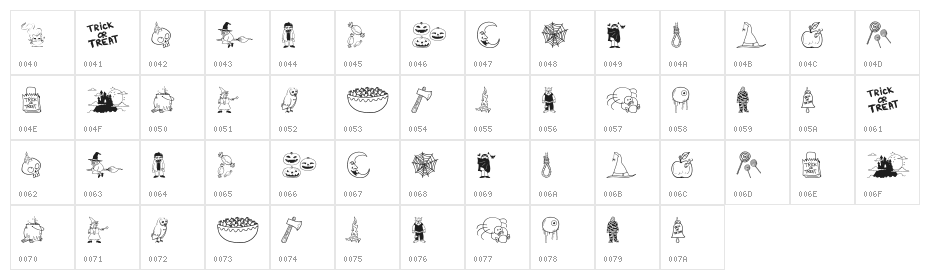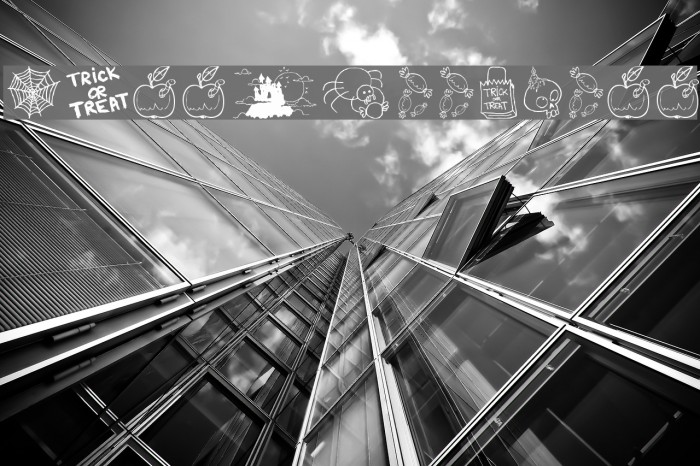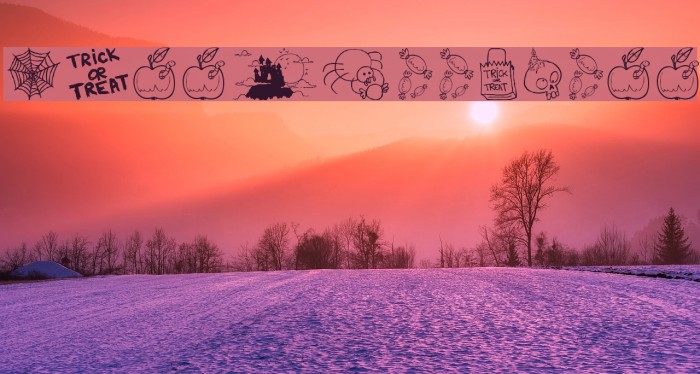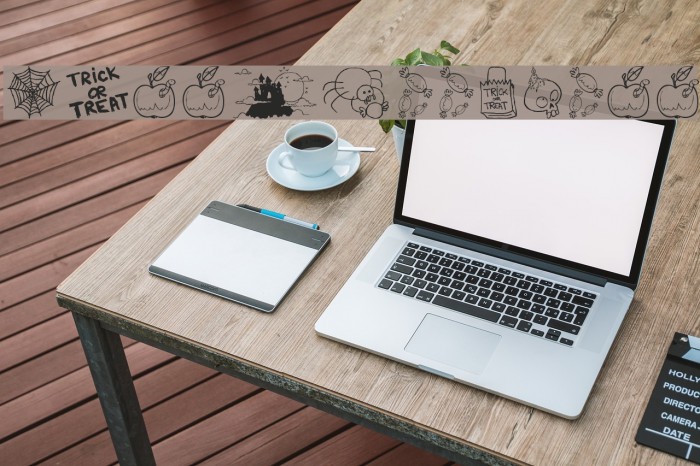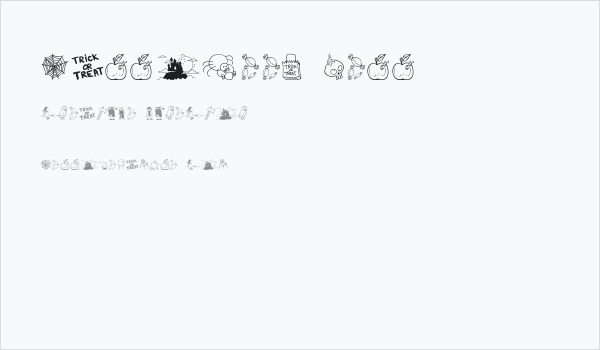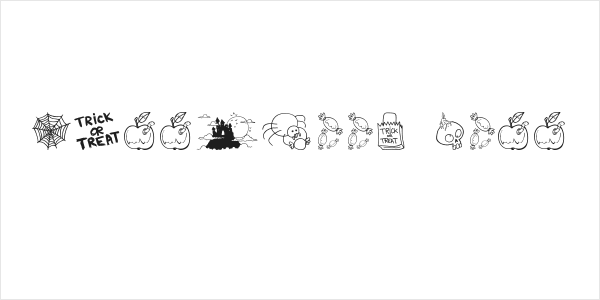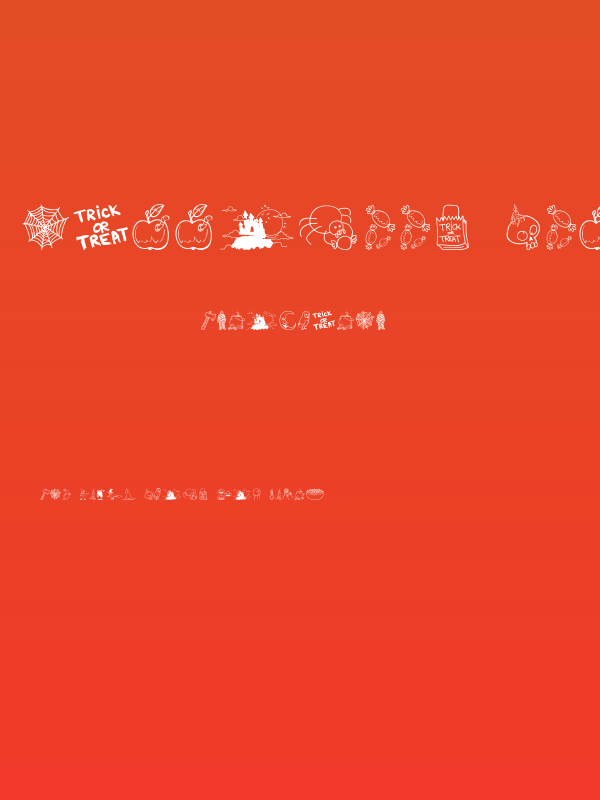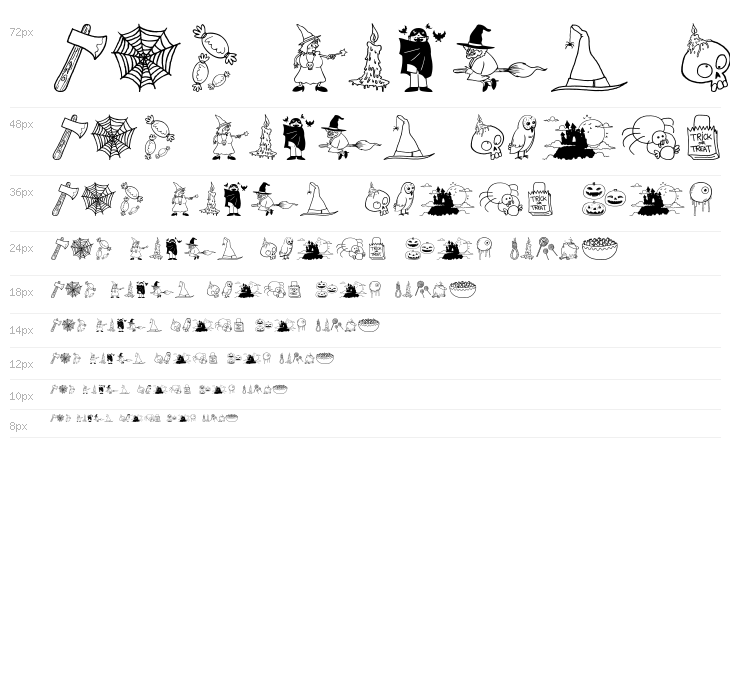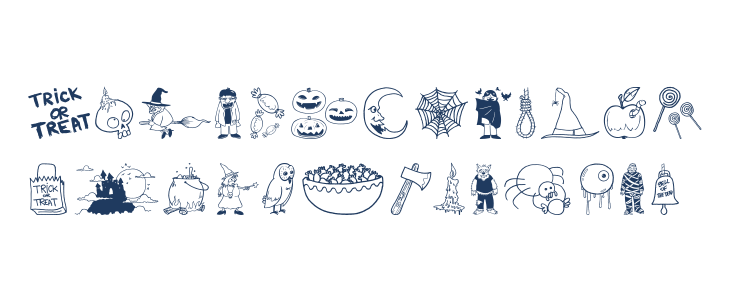
Halloween Bell Font
Halloween Bell Description
This is a decorative Halloween-themed design featuring a variety of spooky and playful illustrations. The images include classic Halloween symbols such as witches, pumpkins, skulls, and spiders, all rendered in a whimsical and cartoonish style. The elements are detailed with bold outlines and minimal shading, creating a fun and festive atmosphere. The design is perfect for adding a touch of Halloween spirit to any project, with its charming and slightly eerie aesthetic.
| Use Case | Logos, Posters, Invitations |
| Proposed Projects | Ideal for Halloween party invitations, themed posters, greeting cards, and festive decorations. |